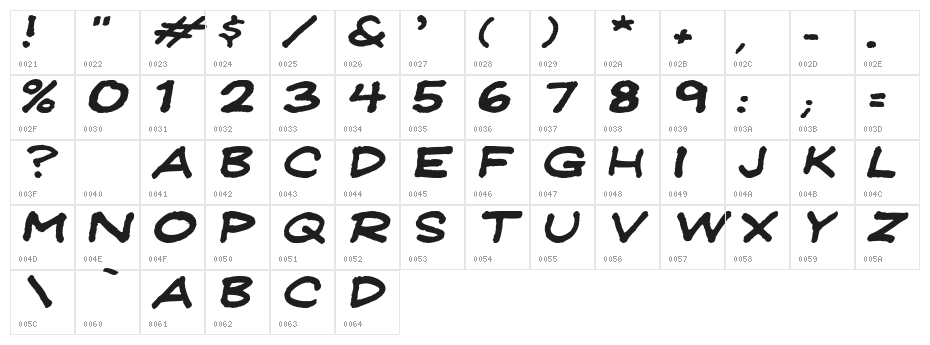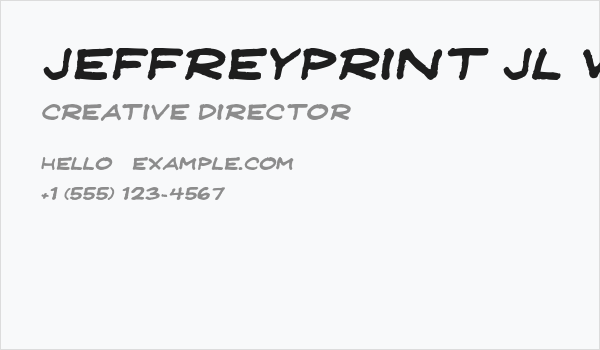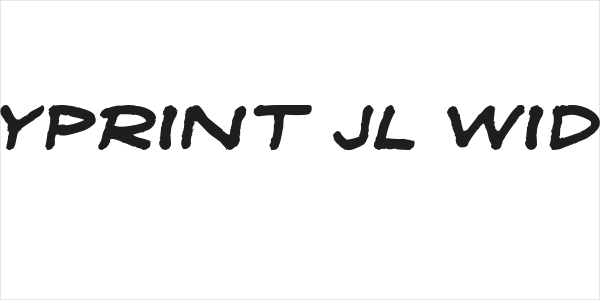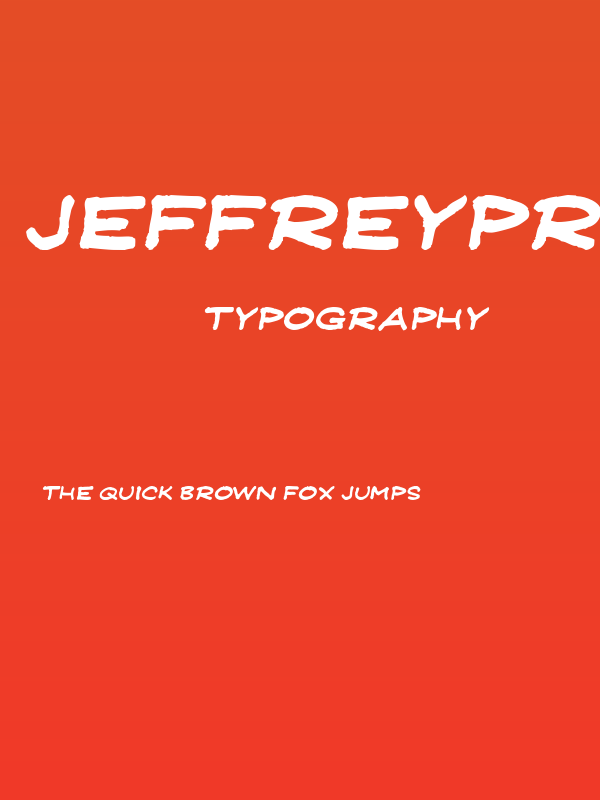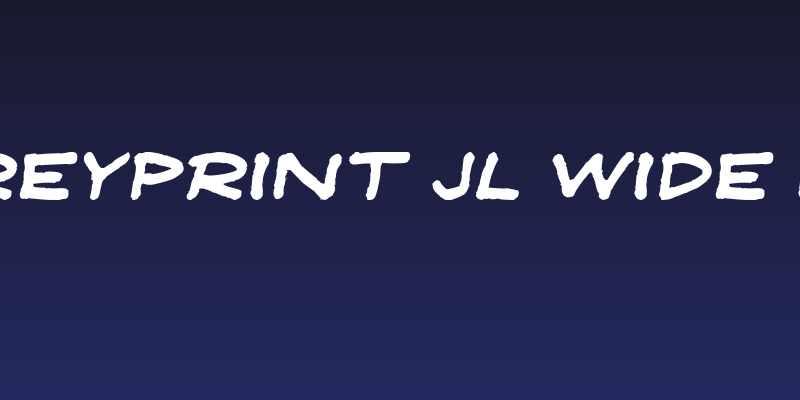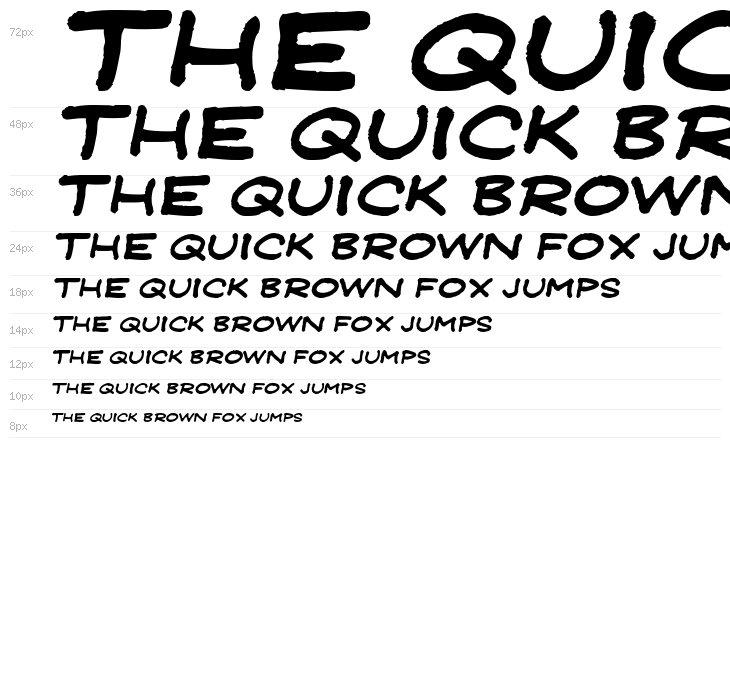
JeffreyPrint JL Wide Italic Font
JeffreyPrint JL Wide Italic Description
This font features a bold, handwritten style with a wide and italicized appearance. The characters are slightly slanted, giving a dynamic and energetic feel. The strokes are thick and consistent, providing a strong visual impact. The uppercase and lowercase letters maintain a uniform style, with rounded edges and a playful, casual aesthetic. Numbers and special characters are designed to match the overall theme, ensuring cohesion across all elements.
| Proposed Projects | Ideal for creative projects such as posters, invitations, and branding materials where a casual and energetic feel is desired. |